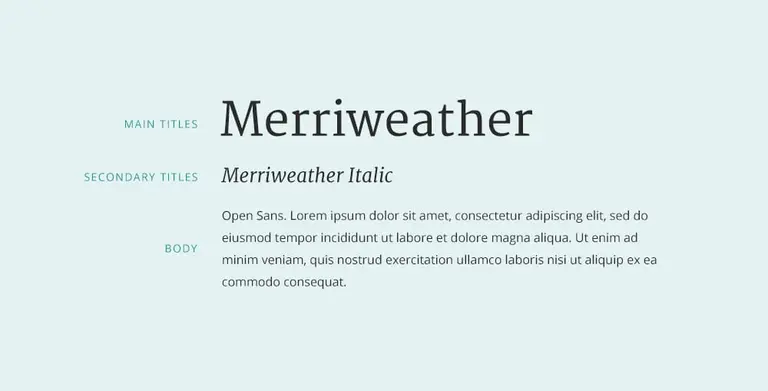
The designer’s ultimate guide to font pairing
From the thousands of options available, designers constantly ask themselves which fonts they should use: do I stick to a Serif or a Sans Serif? Combine the Serif + Sans Serif, Script + Serif, Serif + Serif, or Script + Script?
There’s no easy answer to this. But at its core, font pairing is the art of harmonizing different fonts to create cohesive and striking designs.
“Good typography, first, makes words readable. At its best, it does something more: it helps express the animating spirit of the ideas behind the words.” – Michael Bierut, Graphic Designer
In this blog post, we’ll discuss everything you need to know about font pairing and how to do it effectively. Together, we will explore the psychology behind fonts, dissect the principles of harmonious font pairing, and showcase practical applications.
So, if you're ready to transform your design projects, captivate your audience, and leave a lasting impression, let's start exploring what the world of font pairing involves.
The intricacies of font pairing
Whether crafting a logo, designing a website, or curating a marketing campaign, the fonts you choose can speak volumes about your brand's identity and personality. Understanding the art of font pairing is not just a skill; it's a strategic advantage in branding and marketing.
To make font pairing easier, we've compiled a handy glossary of key terms you'll need to know.
3 basics of type-centric design
Type-centric design, often referred to as typography-focused design, is a creative discipline that places fonts and text at the forefront of visual communication. In this design approach, typography becomes more than just words on a page; it transforms into a powerful design element that conveys emotions, messages, and aesthetics.
Type-centric design embraces the art of selecting, arranging, and styling fonts to create impactful compositions. Whether crafting captivating headlines, designing elegant logos, or shaping the user experience on a website, type-centric design is where letters become artworks, and every character carries meaning.
Let’s look at the fundamentals of type-centric design below:
1. Font classifications
For many designers, typography is the foundation of their design. Fonts come in various classifications, each with unique characteristics. Serif fonts, like Garamond and Baskerville, convey tradition and elegance.
Sans-serif fonts, such as Helvetica (yeah, we know), Bebas Neue, and Roboto Mono, evoke modernity and simplicity.
Script fonts like Copperplate add a personal touch, along with more modern cursive fonts like the Debby brush typeface. Display fonts like Futura will also grab the viewer’s attention with bold, easy-to-read styles.
2. The power of contrast
Contrast is a fundamental element in font pairing. Combining fonts with contrasting characteristics creates a dialogue between the conversational elements of your work.
For instance, pairing a bold font with a delicate script or cursive font can make your design dynamic and engaging.
3. Size and hierarchy
Consider font size and hierarchy in your design. Use larger, bolder fonts for headings and titles, like ‘Display Fonts.
Opt for smaller, narrow typefaces for legible body text when reduced to smaller sizes and weights, ensuring a clear visual hierarchy and enhancing readability.
Step-by-step guide to font pairing
The decision-making process when pairing fonts is mostly about making aesthetic choices that create harmony with the rest of your design. But, a few practical steps shouldn't be overlooked:
Step 1
Plan and purpose
Like all good design work, the trick to excellent font pairing is planning.
Start by working out what you want to say with your design and how you would like to say it. Consider the tone of your communication—is it formal or informal? Assertive or friendly?
Research a few fonts that work with the purpose of your project, and start considering how each of them works towards communicating the plan you have in mind.
Step 2
Experiment with options
Contrast is the cornerstone of effective font pairing, so start experimenting with how you can use the fonts you have earmarked to their best effect.